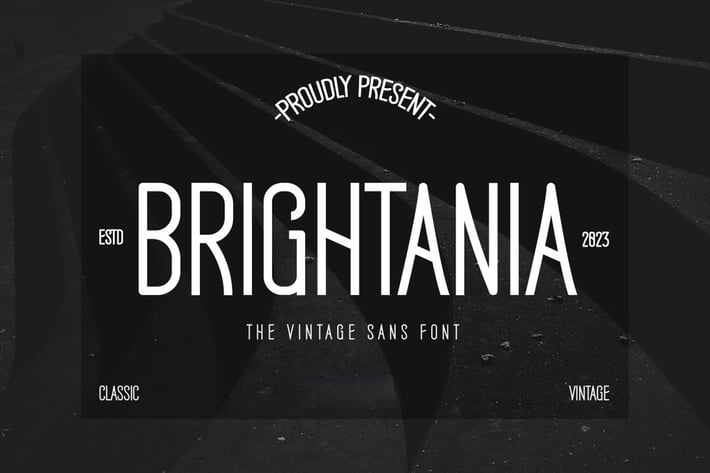
Brightania – Vintage Display Sans Serif Font
Brightania is a bold vintage sans serif display font inspired by retro typography and classic design aesthetics. With smooth curves, geometric structure, and a strong presence, it's perfect for logos, product labels, headlines, and editorial layouts.
Whether you're creating nostalgic visuals or timeless branding, Brightania adds charm and versatility to your design toolkit.
Key Features:
- Bold sans serif with vintage styling
- Ideal for logos, posters, packaging, and signage
- Clean lines and strong legibility
- Great for retro, minimalist, or classic design themes
- Uppercase characters, numbers, and punctuation
- Carefully spaced and well-kerned
Brightania brings bold personality and vintage soul to modern creative projects.
Enhance your designs with Brightania – the perfect fusion of vintage charm and modern aesthetics.